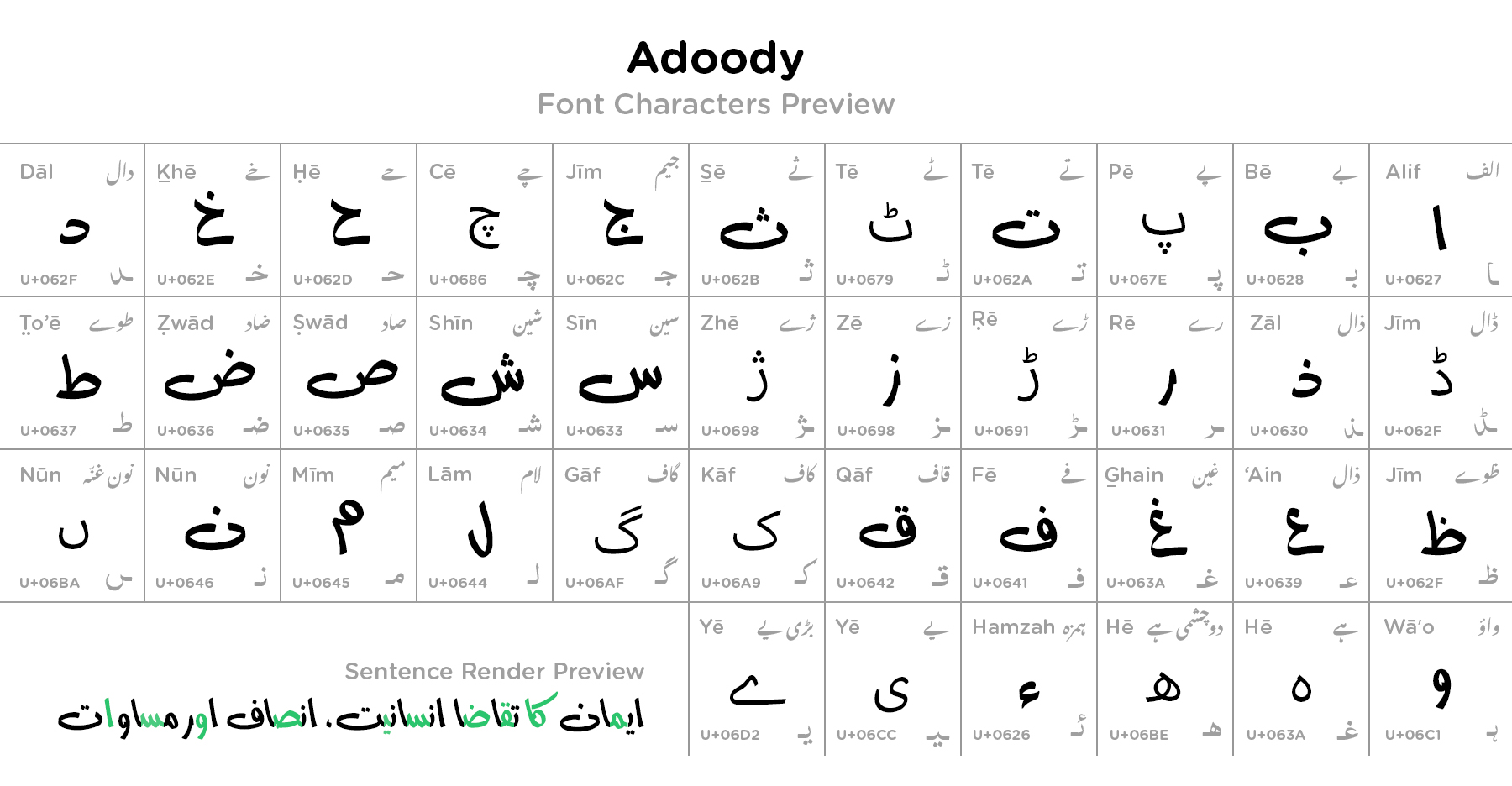
Adoody is a TrueType curved Arabic Font with the feel of natural Qalam-writing designed by Mohamèd Gamal. The font captures the organic and dynamic nature of hand-written calligraphy, with varying stroke thickness and subtle imperfections. While expressive, it focuses on readability, ensuring the text remains clear and understandable even at smaller sizes. It is suitable with Arabic, Urdu, Latin, and more which suggests its character set surpasses the standard limit of 256 symbols and letters.
Delving into the design elements of this unique font, it offers a plain yet lively look to whatever text it is applied to. Its tilted outlook suggests its inspiration has been driven by the traditional Nashtaliq script. Moreover, it has rounded curvy corners and two-tip sharp edges with tiny flicks at the end. It can be used in various artistic projects including, logo designing, plain and long body texts, especially in poetry books, and also in interactive social media posts and branding purposes.